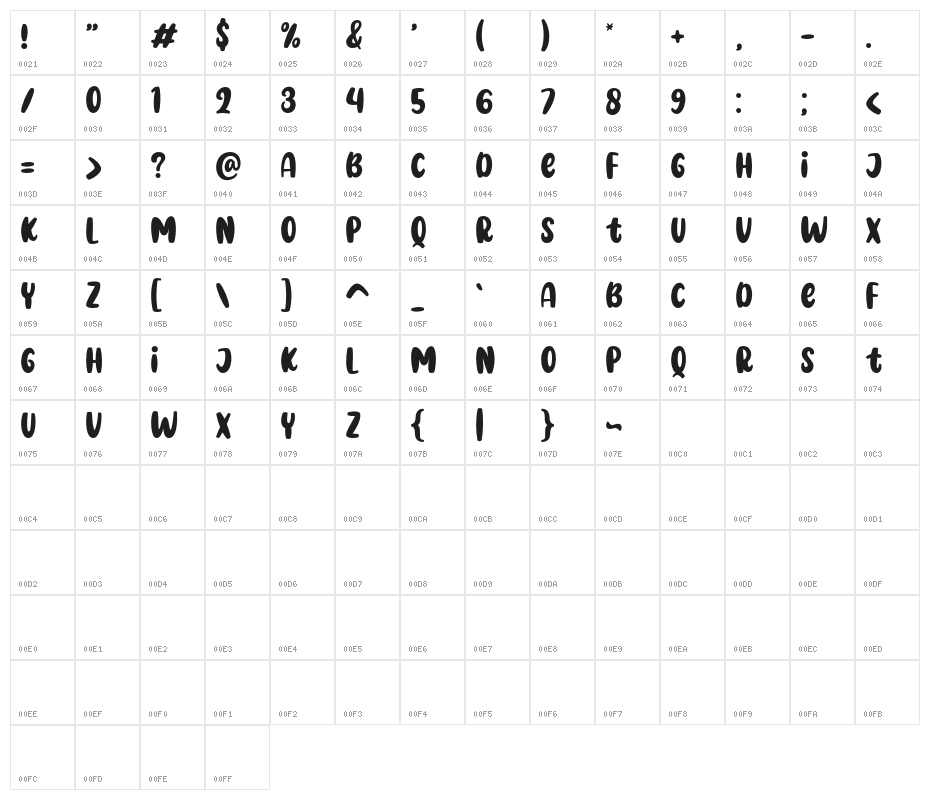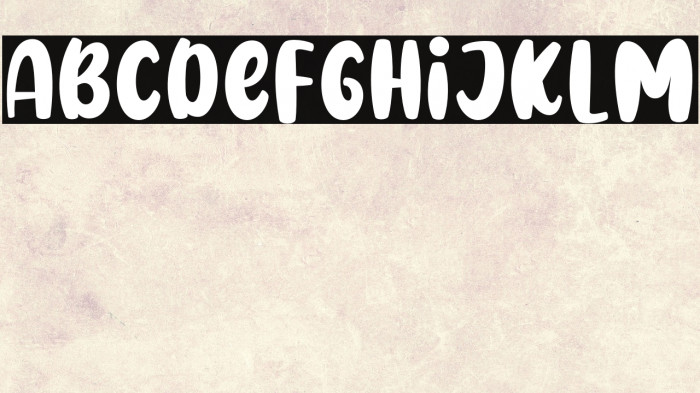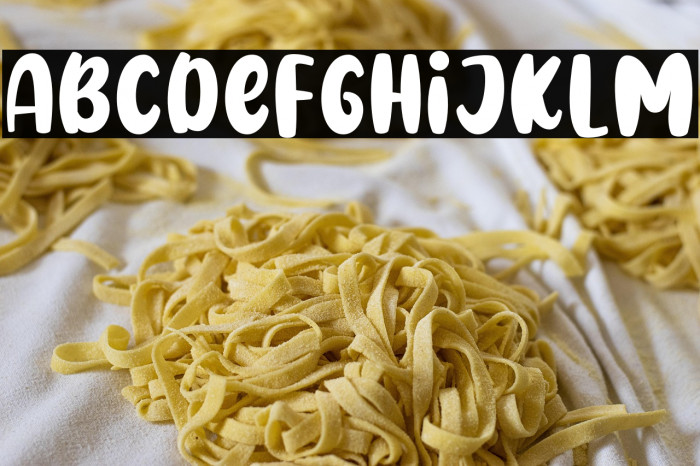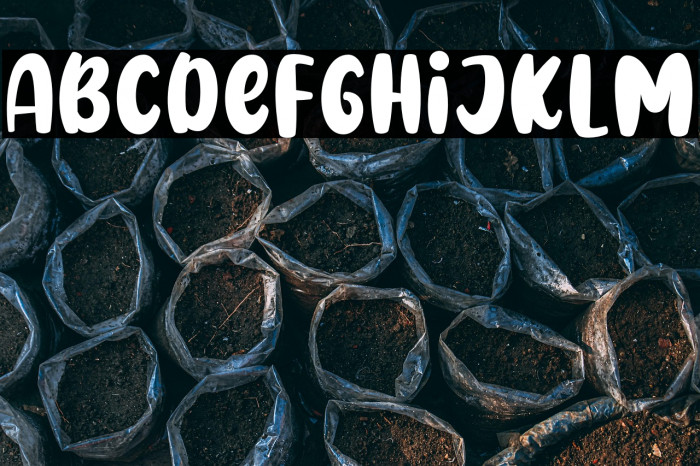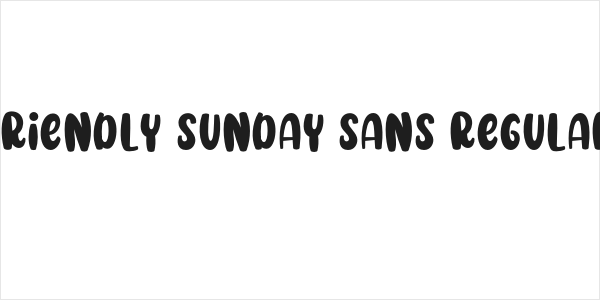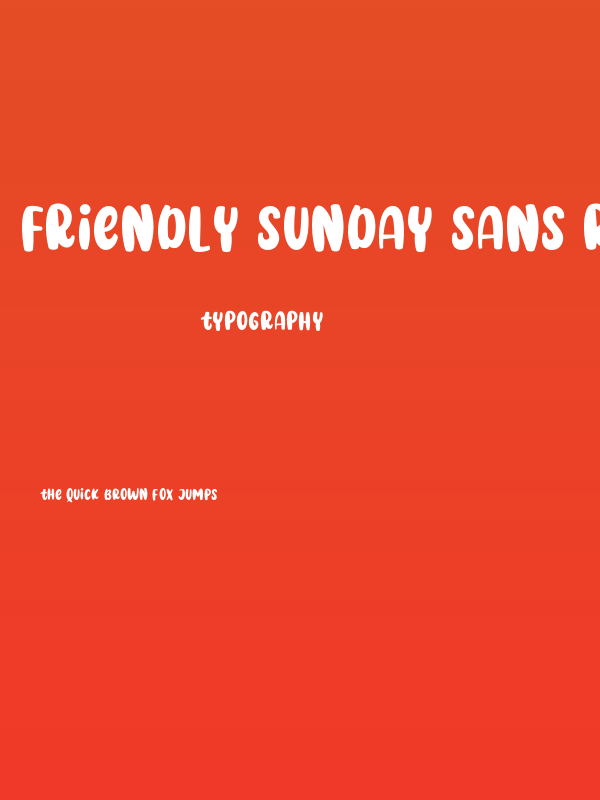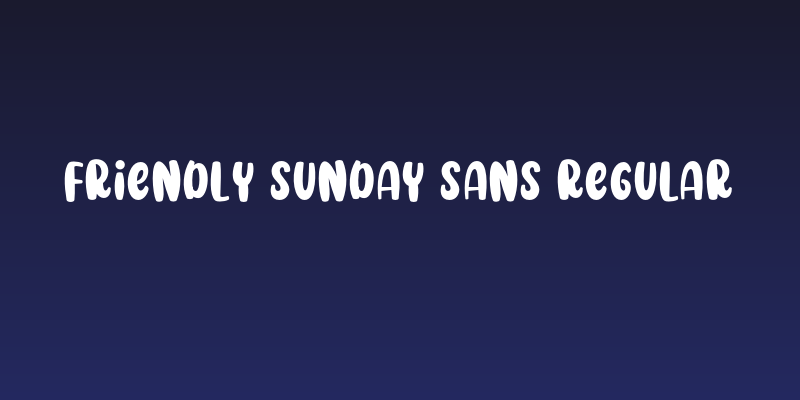
Friendly Sunday Sans Regular Font
Friendly Sunday Sans Regular Description
This font features a playful and bold style with rounded edges and a friendly appearance. The characters are thick and have a consistent weight throughout, giving them a strong presence. The uppercase and lowercase letters maintain a uniform height, contributing to a cohesive look. The numbers and special characters are designed to match the overall style, ensuring visual harmony. This font's design is approachable and modern, making it suitable for a variety of creative projects.
| Proposed Projects | Ideal for children's books, playful branding, greeting cards, and social media graphics. |